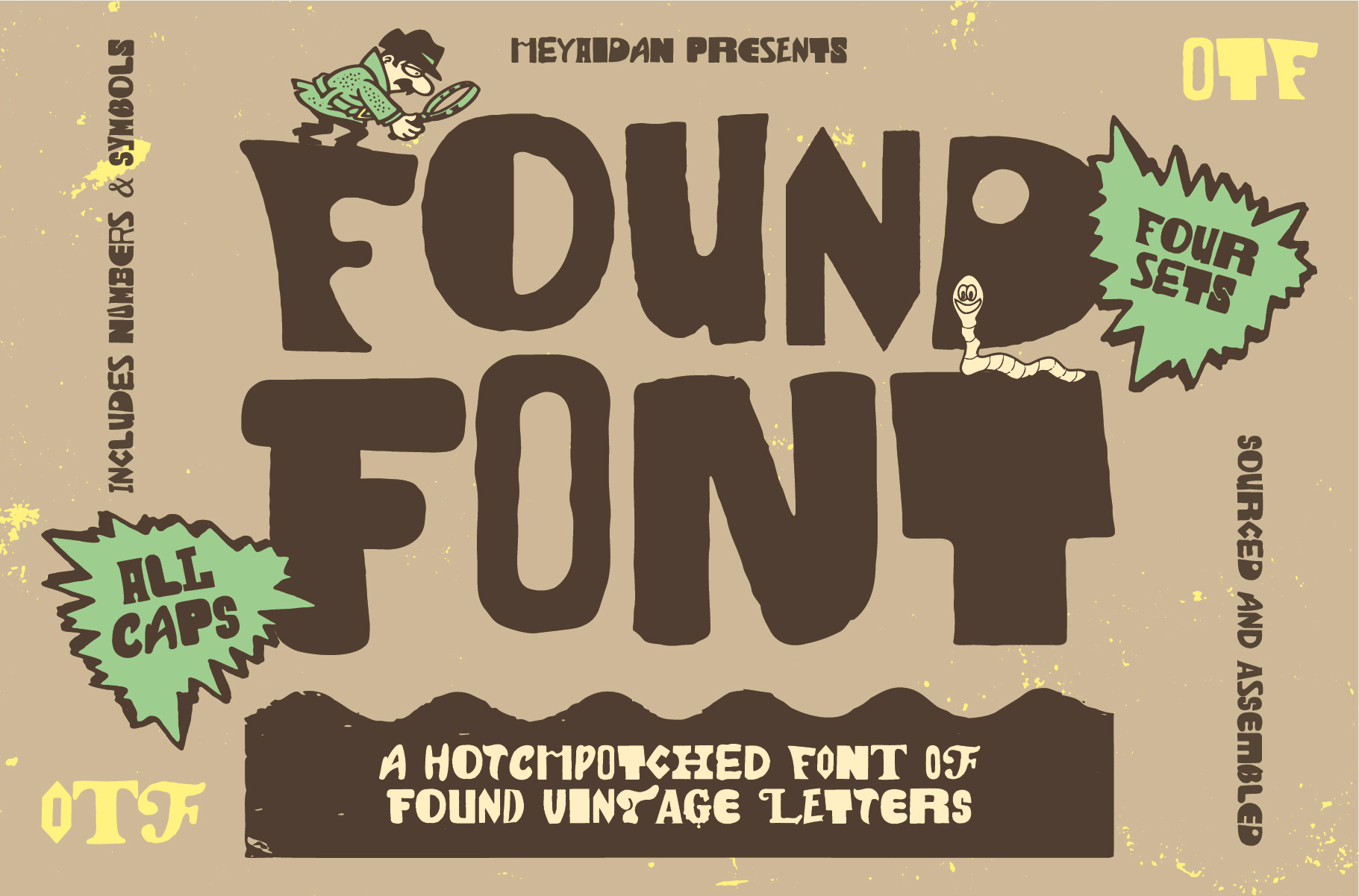
Found Font | Vintage Inspired Font
Look what we have here! 👀 Consisting of over 100 individual letterforms, Found Font is exactly what it says it is - a collection of letters sourced from vintage packaging, toys and whatever else I found interesting to look at.
Want to mix up your type game with something random yet considered? Check out this sprawling font with heaps of character and vintage texture. Both "uppercase" and "lowercase" keystrokes have been allocated to individual letters and also includes two sets of alternatives to experiment with.
Found Font is an All Caps display font that is random, textured and has a bunch of random letter forms for creative control on how your words look. Make your designs look that little bit more random with Found Font!
Letters in all caps
Works best at maximum scale!